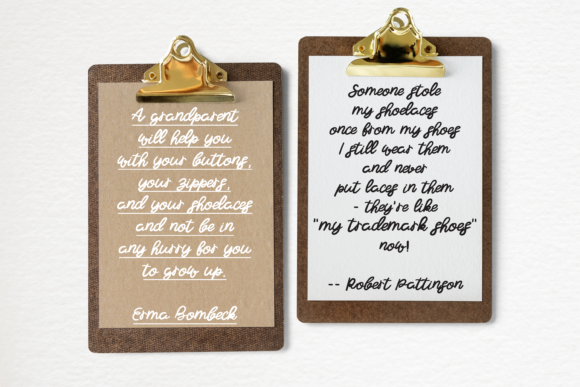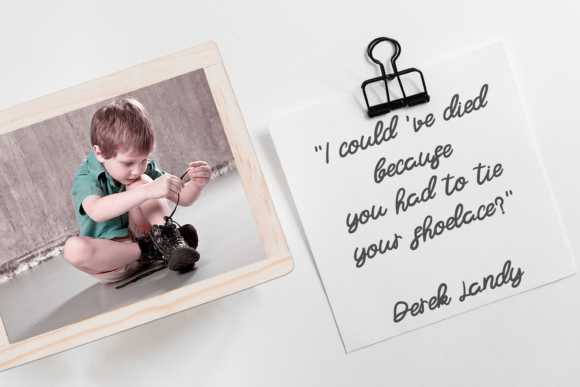
Introduction to Shoelace Font
Shoelace is a bouncy & quirky handwritten font.
Get inspired by its incredibly cursive feel Use this font to turn any design project into a standout.
Key Features of Shoelace Font
Why Choose Shoelace Font?